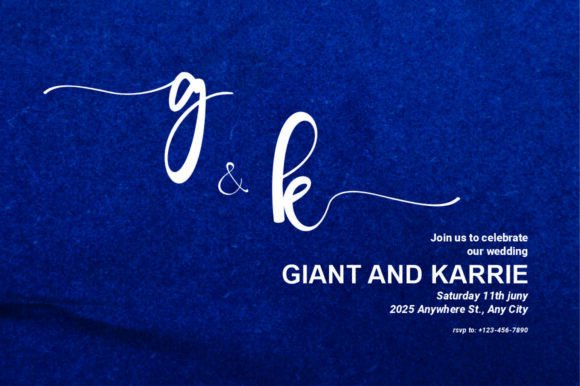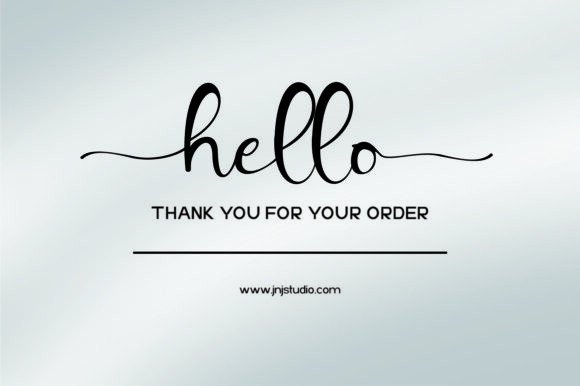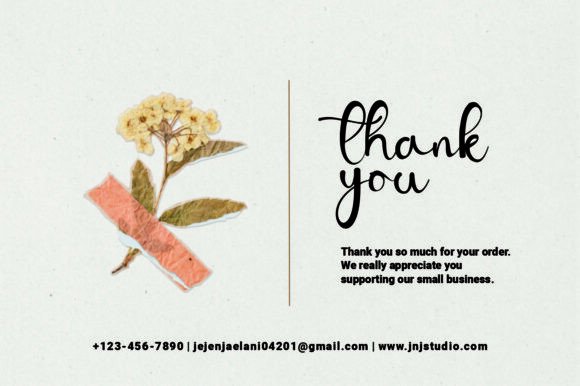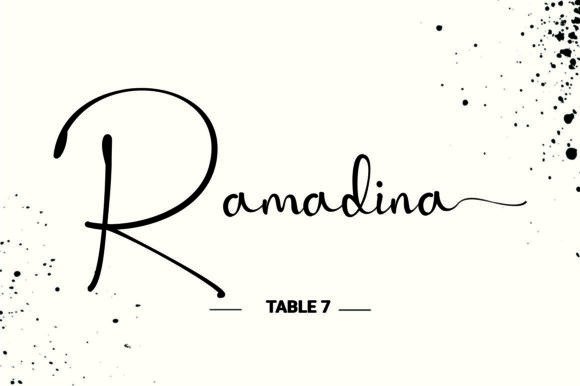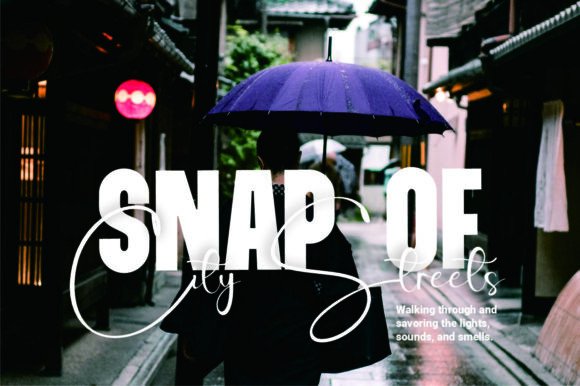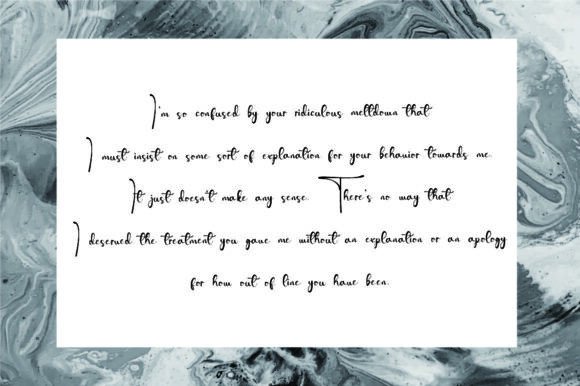
Introduction to Rigalia Font
Introducing “Rigalia” is a luxurious script font that exudes elegance and sophistication.
With its fluid strokes and refined curves, Rigalia captures the essence of timeless handwriting while maintaining a modern edge Designed to mimic the graceful flow of calligraphy, each character in Rigalia is meticulously crafted to bring charm and personality to your designs.
Key Features of Rigalia Font